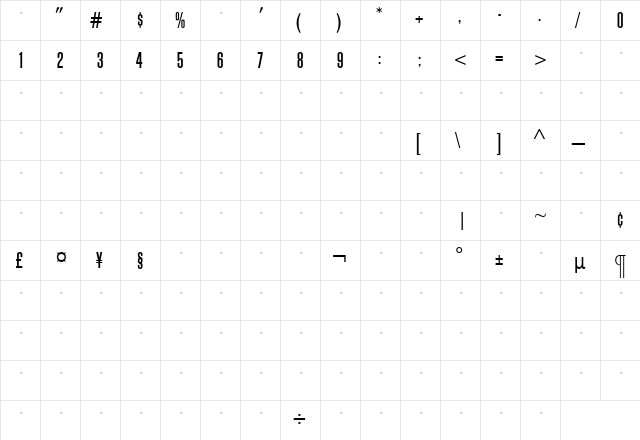
BlockGothicMediumExtraCondTab Roman
Design Context for BlockGothicMediumExtraCondTab Typeface
BlockGothicMediumExtraCondTab has the quiet confidence of well-executed sans-serif typography: versatile, unobtrusive, and dependable at any size. Its narrow stance lets it pack a punch even in space-constrained designs.
Font Pairing: Works well alongside a characterful serif or display font that can carry the expressive load while BlockGothicMediumExtraCondTab handles the functional copy.
Pro Tip: Use BlockGothicMediumExtraCondTab tightly set in headlines and banners — its condensed proportions make it ideal for maximum impact in minimum horizontal space.